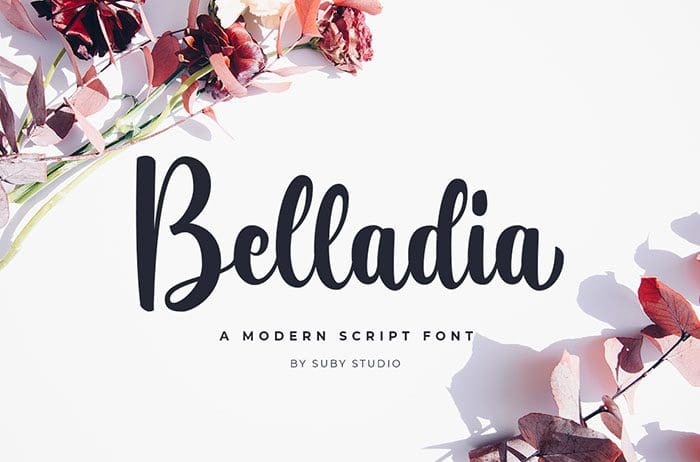
Free Belladia Script Font
Free Belladia Script Font is a modern font script with elegant looking. It’s easy and simple to use and is perfect for branding, logos, greeting cards, wedding Stationery, quotes, and much more! This font is available only for personal use. Created this font by Teguh Subiyantoro. You can also search more free Script Fonts. Thanks!